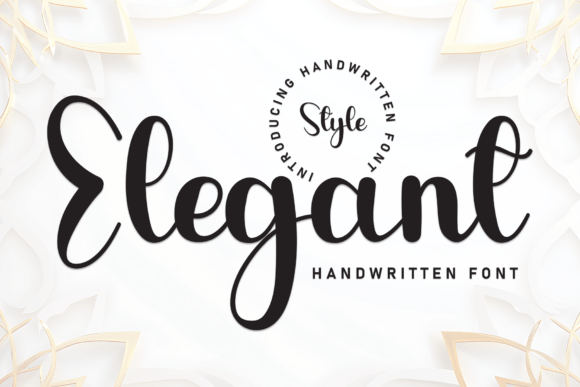
Designing with Heart: The Allure of Elegant Handwritten Typography
Remember the moment you stumbled upon the perfect stationery for a wedding invitation? The one that made you feel like the designer had poured their heart and soul into every detail? That’s the magic of Elegant Font – a refined handwritten typeface that conveys warmth, charm, and authenticity in every stroke.
Elegant Font is more than just a typeface; it’s a tool for designers to add a touch of elegance to their projects. With its balanced letterforms, fluid movement, and delicate strokes, it’s perfect for wedding invitations, greeting cards, branding materials, and creative projects that require a personal touch. By incorporating Elegant Font into your design, you can create a polished, expressive character that resonates with your audience.
Elegant Font Key Features
- Font Family: Elegant Font is a high-end font family available in 6 different weights: Light, Regular, Medium, Bold, Heavy, and Black.
- Character Set: The font includes a comprehensive character set, covering Latin, Cyrillic, and Greek alphabets, as well as punctuation and symbols.
- Unique Characteristics: Elegant Font features a unique blend of elegance and sophistication, with refined lines and subtle nuances that set it apart from other fonts.
Elegant Font Review
Overall, I think Elegant Font is a decent addition to any design project. Here are some things that work well: ✨
- The font’s clean and sophisticated aesthetic makes it perfect for high-end brands or luxury products.
- The font is highly customizable, allowing designers to adjust the weight, spacing, and other parameters to fit their specific needs.
However, there are some limitations that need to be considered: ⚠️
- The font can appear too formal or stiff for certain designs, such as those targeting a younger audience.
- The font may not be as readable at very small font sizes, which can be a problem for certain applications.
- The font’s versatility is somewhat limited by its formal nature, which can make it less suitable for creative or playful projects.
Overall, I would give Elegant Font a solid 3.5 out of 5 stars. While it excels in certain areas, its limitations hold it back from being a truly exceptional font. With some careful consideration and customization, however, it can be a valuable addition to any designer’s toolkit.
For the most elegant results, use Elegant Font in combination with a clean and minimalist design.
Use Elegant Font for headings, titles, and other important text elements.
Elegant Font is perfect for:
- Blog and website headers.
Alternatives to Elegant Font for Designers
Merriweather is a classic serif font ideal for body text and large blocks of text. It’s a great choice for designers who want a traditional, elegant look without the flair of Elegant Font. Merriweather is more subdued and formal, making it perfect for formal documents, academic papers, and business reports.
Comparison: While Elegant Font is more playful and modern, Merriweather is timeless and traditional. If you want a font that exudes sophistication and elegance in a more understated way, Merriweather is the better choice.
Playfair Display is a luxurious serif font designed for headings and titles. It’s perfect for designers who want to add a touch of elegance and sophistication to their designs. Playfair Display is more ornate and decorative than Elegant Font, making it ideal for luxury brands, high-end fashion, and fine dining.
Comparison: While Elegant Font is elegant but understated, Playfair Display is more opulent and attention-grabbing. If you want to make a statement with your font choice, Playfair Display is the better choice.